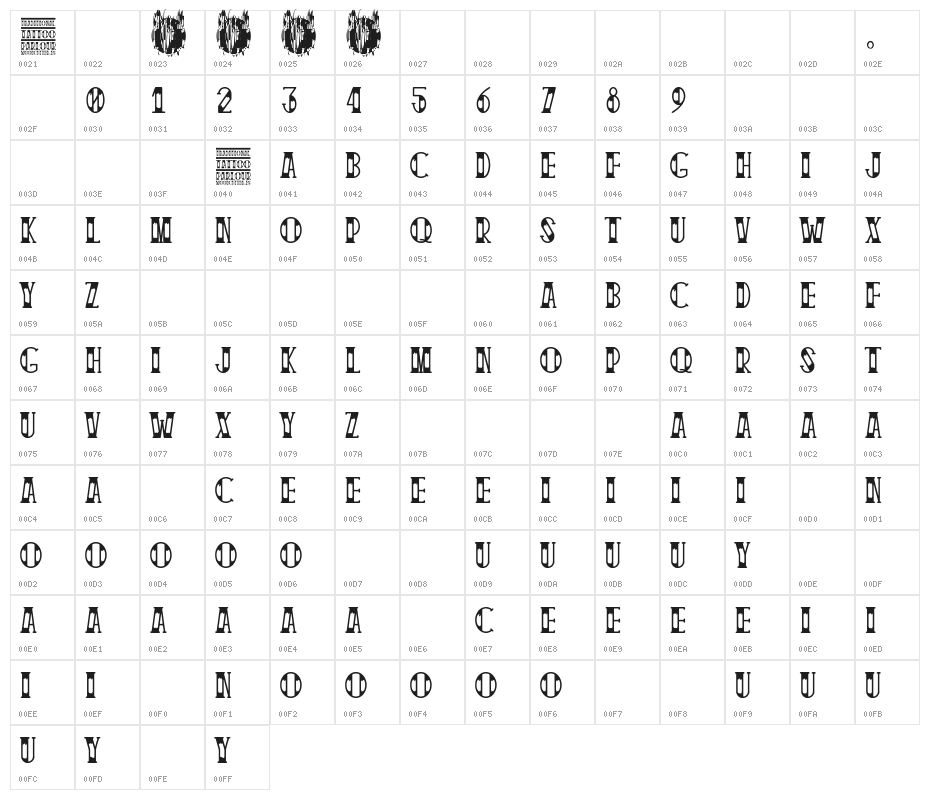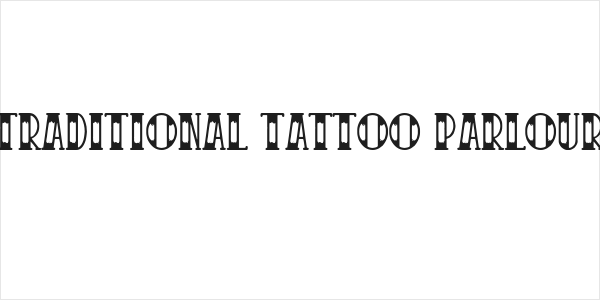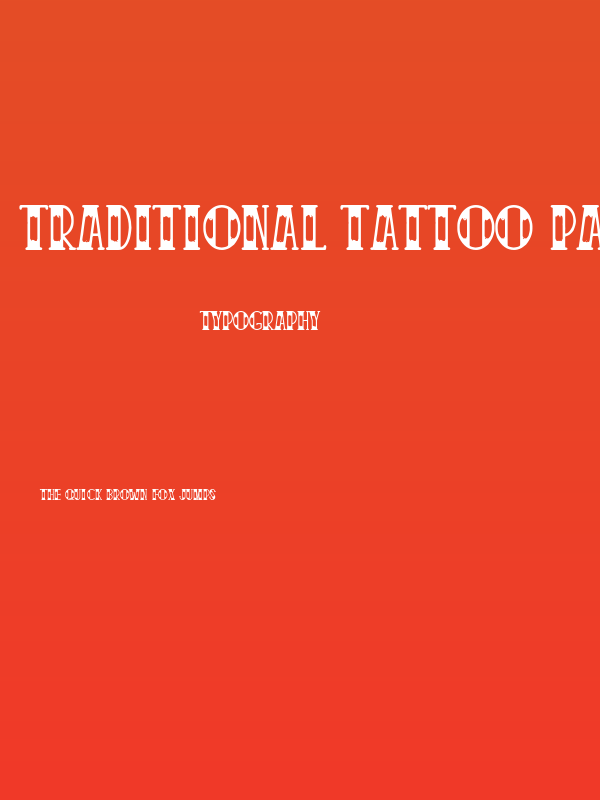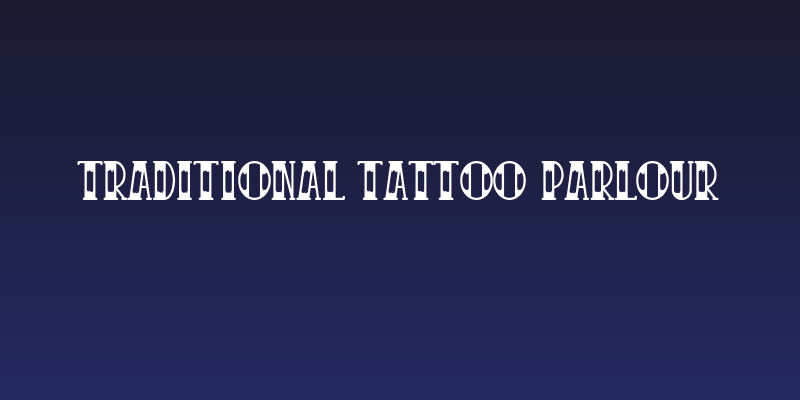
Traditional Tattoo Parlour Font
Traditional Tattoo Parlour Description
This font embodies a bold and striking aesthetic reminiscent of traditional tattoo artistry. The characters are designed with a strong presence, featuring thick strokes and sharp edges that convey a sense of strength and permanence. The uppercase and lowercase letters maintain a consistent style, with slight variations in curvature that add a touch of uniqueness to each character. The numbers are equally bold, ensuring they stand out in any design. Special characters are crafted with the same attention to detail, making them suitable for a variety of creative applications. Overall, this font exudes a classic yet edgy vibe, perfect for making a statement.
| Proposed Projects | Ideal for tattoo designs, posters, branding for edgy or alternative businesses, and any project requiring a bold statement. |